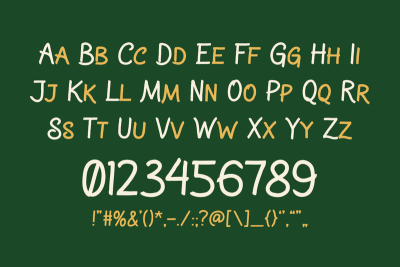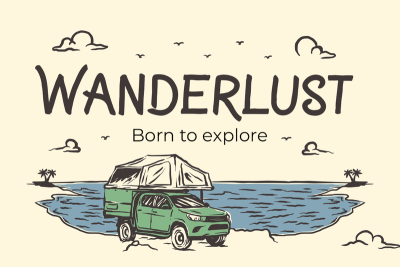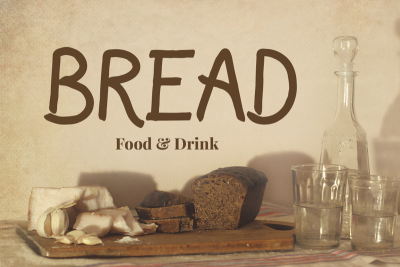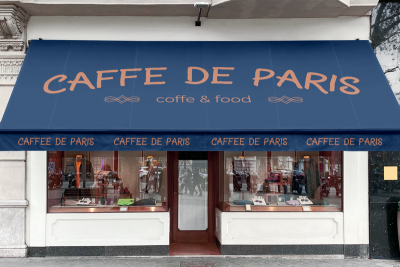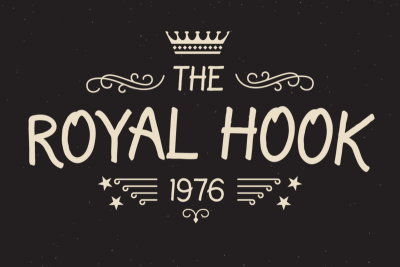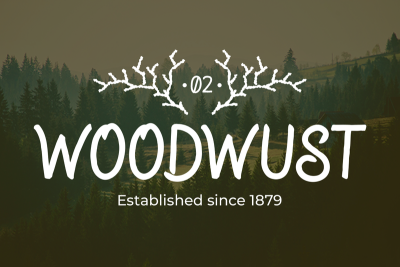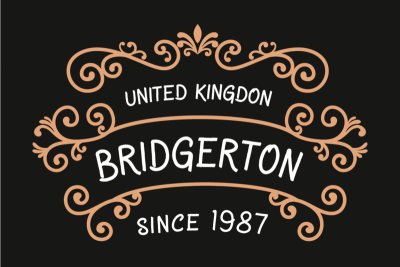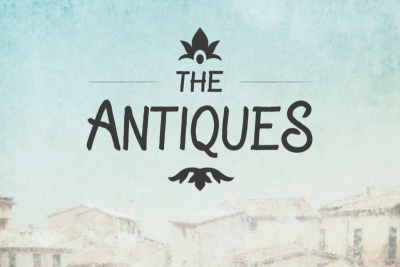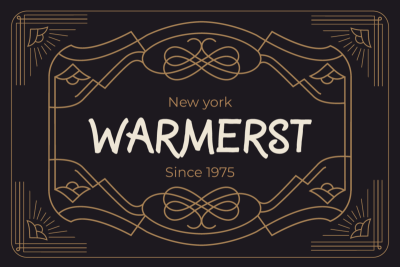
Handwriting font Earthlings is a unique, rustic typeface that brings an earthy, organic feel to any design. This font combines a hand-drawn aesthetic with vintage charm, creating a natural and authentic look. Its slightly irregular shapes and uneven strokes give it a handcrafted appearance, adding warmth and personality to your projects. The bold, unpolished design of Earthlings draws attention while conveying a grounded, raw energy.
Each letter in handwriting font Earthlings has a distinct, imperfect shape, adding a personal touch. The design is versatile and works well with various styles, from vintage to modern rustic themes. With its blend of simplicity and character, Earthlings is ideal for designs that need a natural, grounded quality. Its readability and textured look make it suitable for both digital and print applications, enhancing projects with a hint of hand-crafted artistry.
Earthlings is perfect for designers, artists, and creators in branding, packaging, and event planning. For example, brands focused on sustainability, wellness, or organic products can use this font to create a down-to-earth identity. Earthlings works well in logos, labels, and packaging for brands that emphasize a natural, eco-friendly message. Its handmade feel reinforces values of authenticity and environmental awareness.
Event planners and creators of printed materials will also find Earthlings useful. The font is ideal for invitations, menu designs, and signage at rustic, nature-themed events, such as outdoor weddings or farmhouse gatherings. Its hand-drawn quality adds warmth and a personal touch to event materials, creating a welcoming atmosphere.
Social media managers and content creators can also benefit from using Earthlings in graphics. Itโs perfect for posts targeting audiences interested in nature, wellness, or artisanal crafts. The fontโs raw, rustic charm makes content stand out on feeds, attracting more viewers. Whether in print or digital, handwriting font Earthlings adds authenticity and connection to the natural world. Its distinctive style ensures that designs feel both impactful and personal, resonating deeply with viewers.